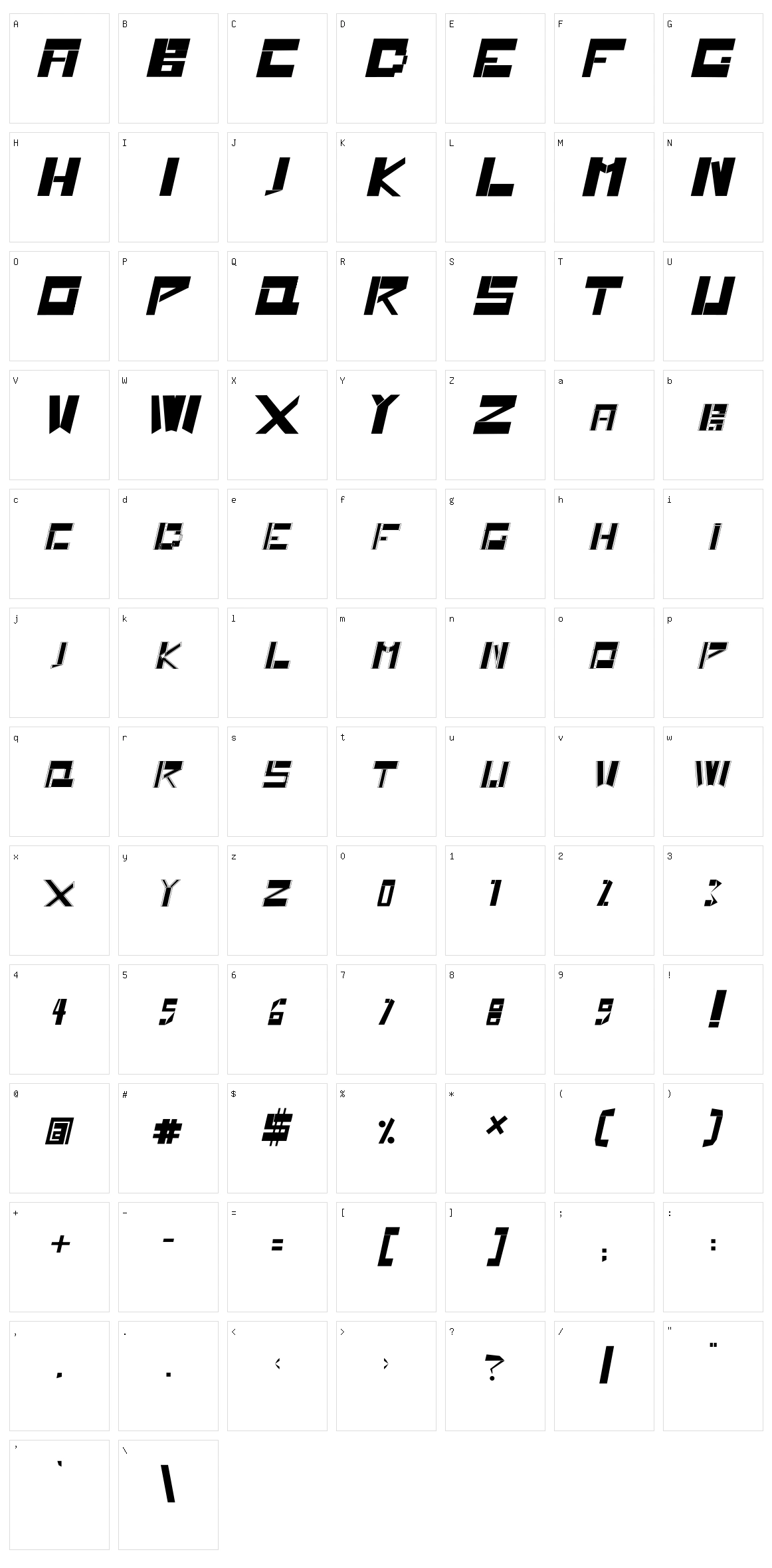
The free font Game is carefully designed by In Pressione di Carattere, showcasing a thoughtful balance of creativity and usability and falls under the Square font style. When you download the ZIP file, it contains only 12.45 KB of font files, making it lightweight and quick to download. Please review the license details below to understand permitted usage and distribution rights. If license information is not available, we recommend using this font for personal projects only or contacting the author directly for commercial usage permissions.